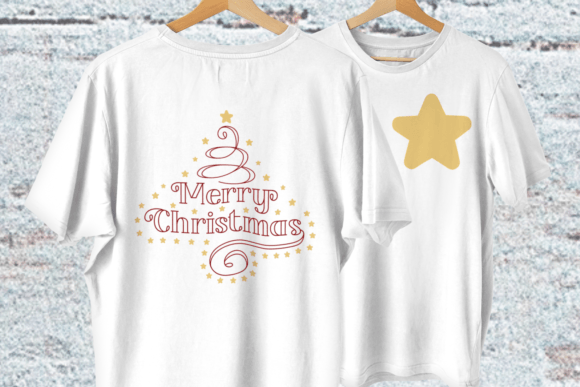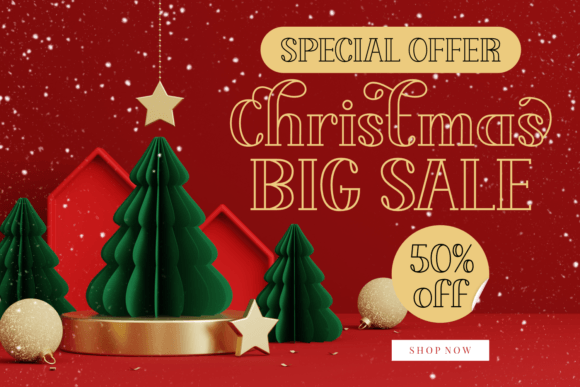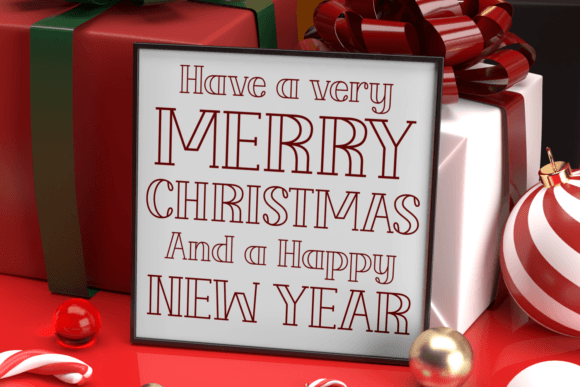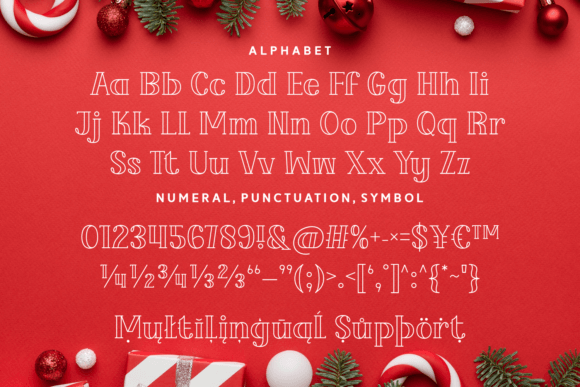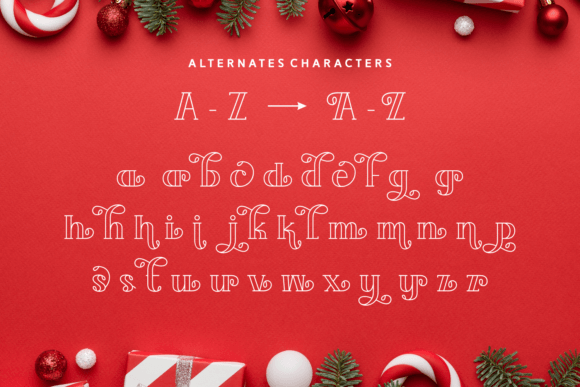
Deck the Halls with Joy and Creativity
It’s that time of the year again when we break out our festive decorations, bake holiday treats, and get into the spirit of giving. As designers, we know that the true magic of Christmas lies not only in the joy it brings to our loved ones but also in the creative projects we get to work on. Whether it’s designing holiday cards, creating festive social media posts, or crafting unique gift tags, the possibilities are endless!
One of the most delightful ways to get into the holiday spirit is with the Celebrate Christmas Font, a lovely and fun display font that’s perfect for creating unique Christmas designs. This PUA-encoded font is a treasure trove of festive flair, allowing designers to access all the glyphs and swashes with ease. With its adorable festive look, the Celebrate Christmas Font is a valuable tool for designers looking to add a touch of holiday cheer to their projects.
Celebrate Christmas Font Key Features
- Font Family: Celebrate Christmas is a unique, custom-designed font family that captures the festive spirit of Christmas.
- Character Set: Includes a wide range of characters, including uppercase and lowercase letters, numbers, punctuation marks, and special characters, making it suitable for various design applications.
- Unique Characteristics: The font features intricate, hand-drawn designs, ornaments, and flourishes, adding a touch of elegance and whimsy to Christmas-themed designs.
Celebrate Christmas Font Review
Overall, I’d say this font has a certain festive charm to it ✨. The designer has done a great job of capturing the essence of the holiday season with its bold, playful, and vibrant design. The font is perfect for anyone looking to add a touch of Christmas magic to their projects.
- The font’s bold and playful design is perfect for titles and headings ✨.
- The vibrant colors used in the font are eye-catching and sure to grab attention ✨.
- The font is highly customizable, allowing users to adjust the size, color, and style to fit their needs ✨.
- The font may not be suitable for longer blocks of text due to its bold and playful design ⚠️.
- The font’s vibrancy may be overwhelming in certain contexts, such as in a quiet or minimalist design ⚠️.
- The font may not be as versatile as other fonts, making it less suitable for general use ⚠️.
Overall, I’d give the Celebrate Christmas Font 4 out of 5 stars. While it’s perfect for certain projects and designs, it may not be the best choice for every situation. However, for those looking to add a festive touch to their work, this font is definitely worth considering.
Getting the Most Out of the Font
To get the most out of the Celebrate Christmas Font, use it to create festive and fun designs. Pair it with bright colors and bold graphics to create a cheerful atmosphere. Experiment with different font sizes and styles to add depth and interest to your designs.
The Celebrate Christmas Font is perfect for creating holiday-themed designs, such as:
– Christmas cards and invitations
– Holiday social media posts and graphics
– Christmas party decorations and signage
– Holiday marketing materials and advertisements